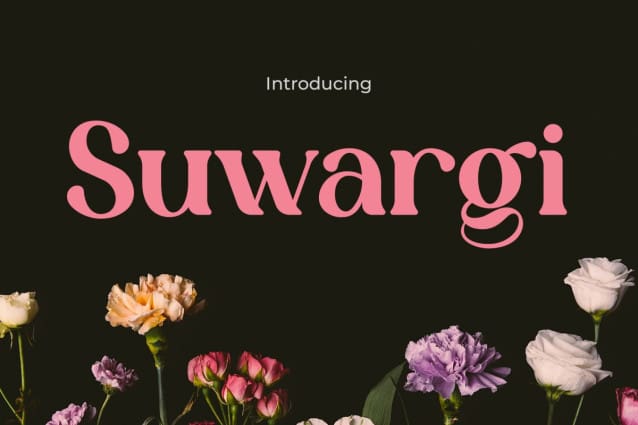
Suwargi Font
Suwargi Font, the epitome of fashion-forward design in the world of typography. With its sleek lines and chic curves, Suwargi Font exudes an aura of sophistication and style, making it the perfect choice for any fashion-related project. Whether you’re designing a trendy magazine spread, crafting promotional materials for a high-end boutique, or creating eye-catching advertisements for a fashion event, SuwargiFont will elevate your designs to new heights of elegance and allure.
Designed with the modern fashionista in mind, Suwargi Font effortlessly blends contemporary flair with timeless elegance. Each letter is meticulously crafted to capture the essence of haute couture, ensuring that your designs make a lasting impression on any audience. With its versatile appeal and impeccable style, SuwargiFont is a must-have for designers looking to infuse their projects with a touch of fashionable sophistication.